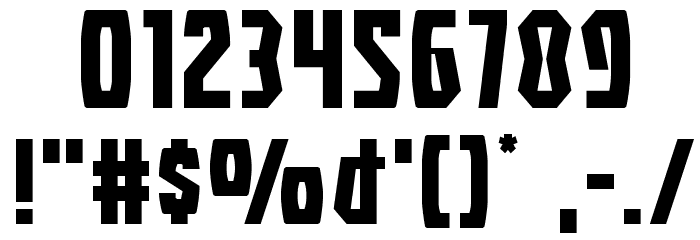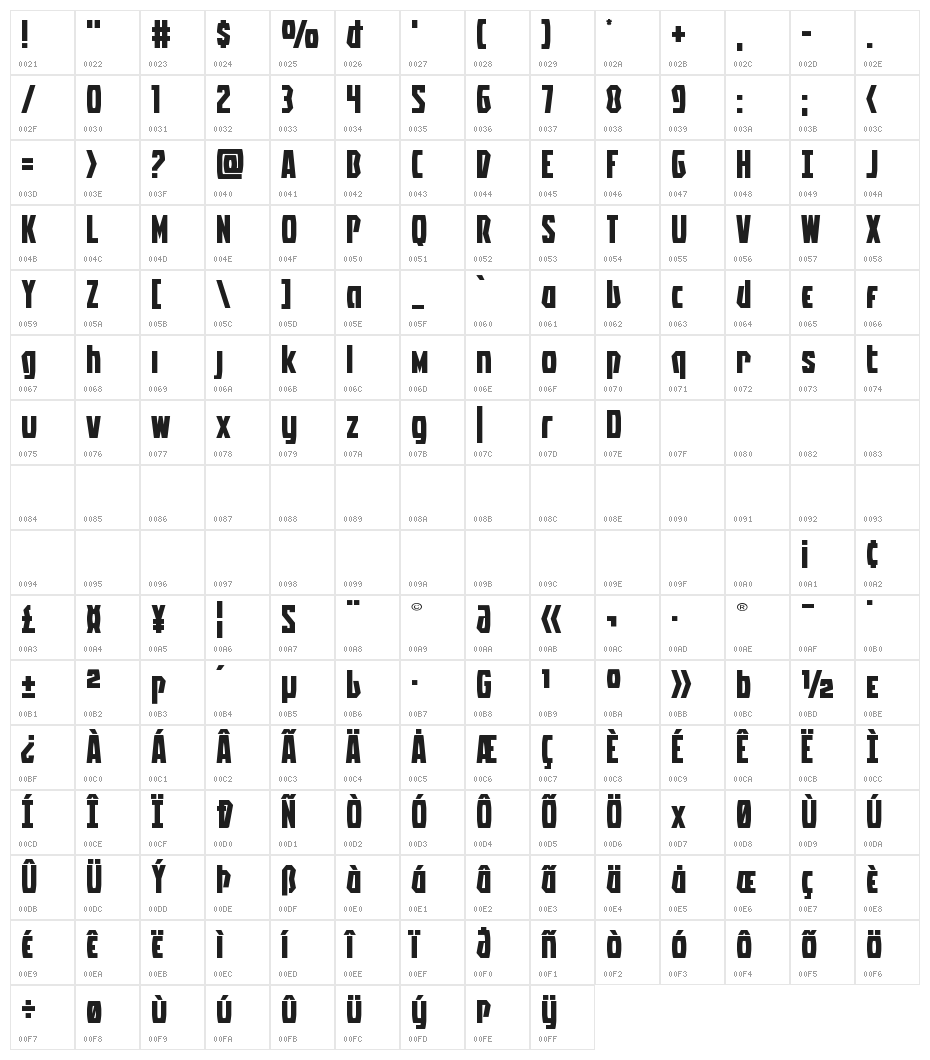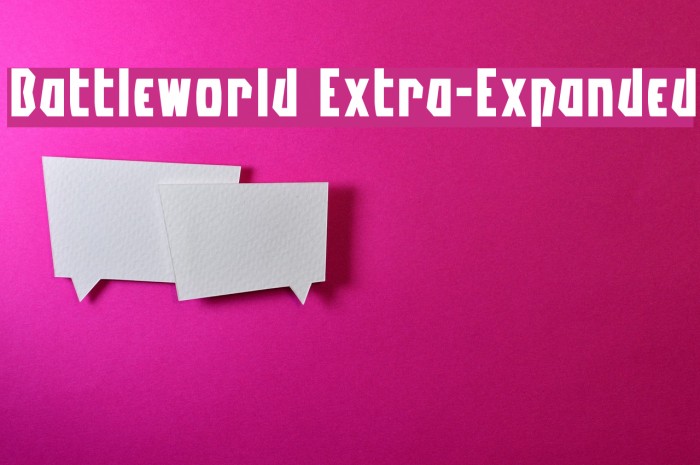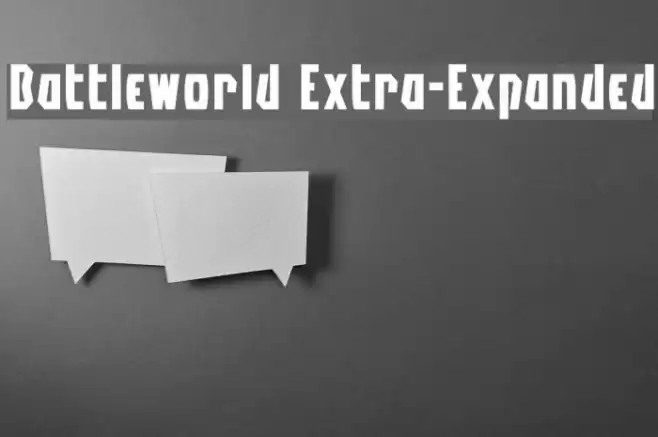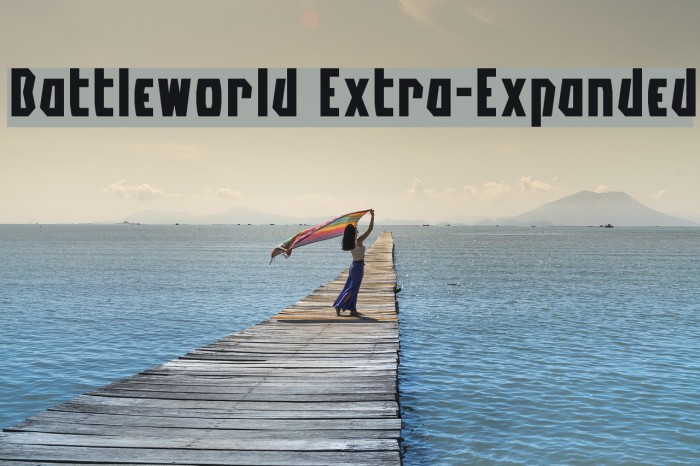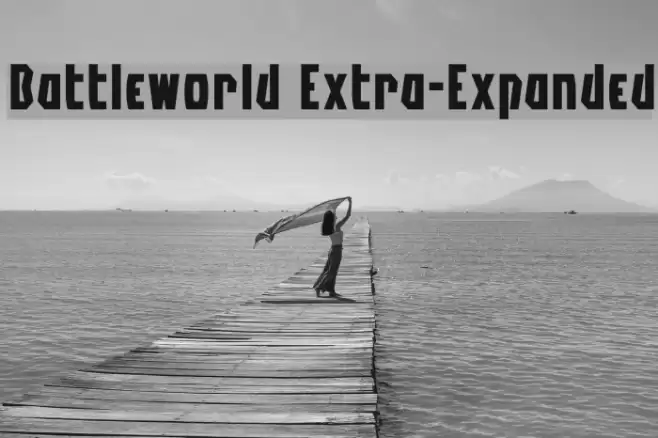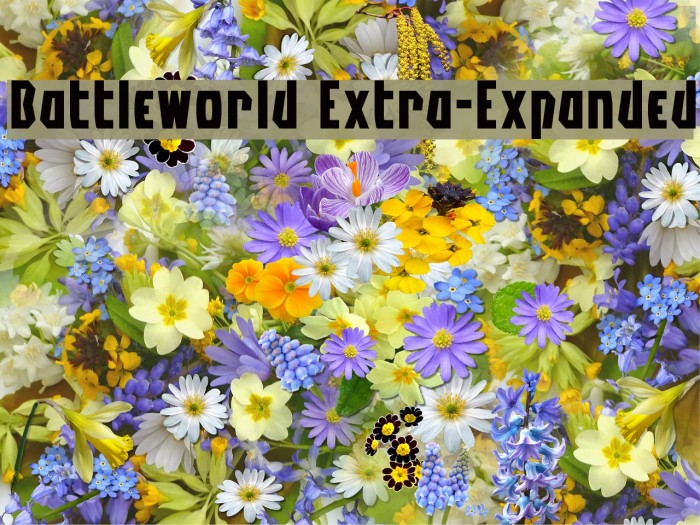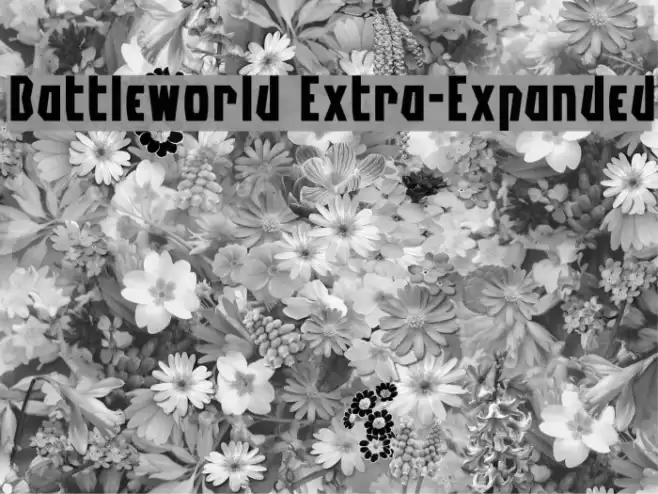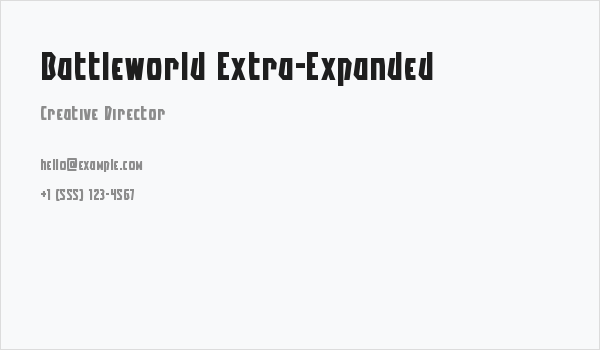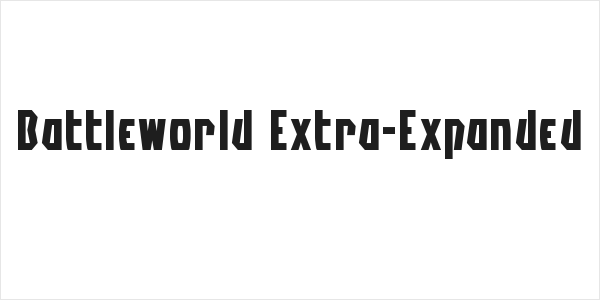
Battleworld Extra-Expanded Font
Battleworld Extra-Expanded Description
This font features a bold and striking design, characterized by its sharp, angular edges and geometric forms. The uppercase and lowercase letters maintain a consistent style, with a strong emphasis on vertical and horizontal lines. The numbers and special characters follow the same aesthetic, ensuring a cohesive look across all elements. The font's expanded width gives it a commanding presence, making it ideal for attention-grabbing headlines or titles. Its unique style is reminiscent of futuristic or sci-fi themes, with a modern twist that sets it apart from traditional typefaces.
| Proposed Projects | Ideal for sci-fi themed posters, video game titles, or branding for tech companies. |